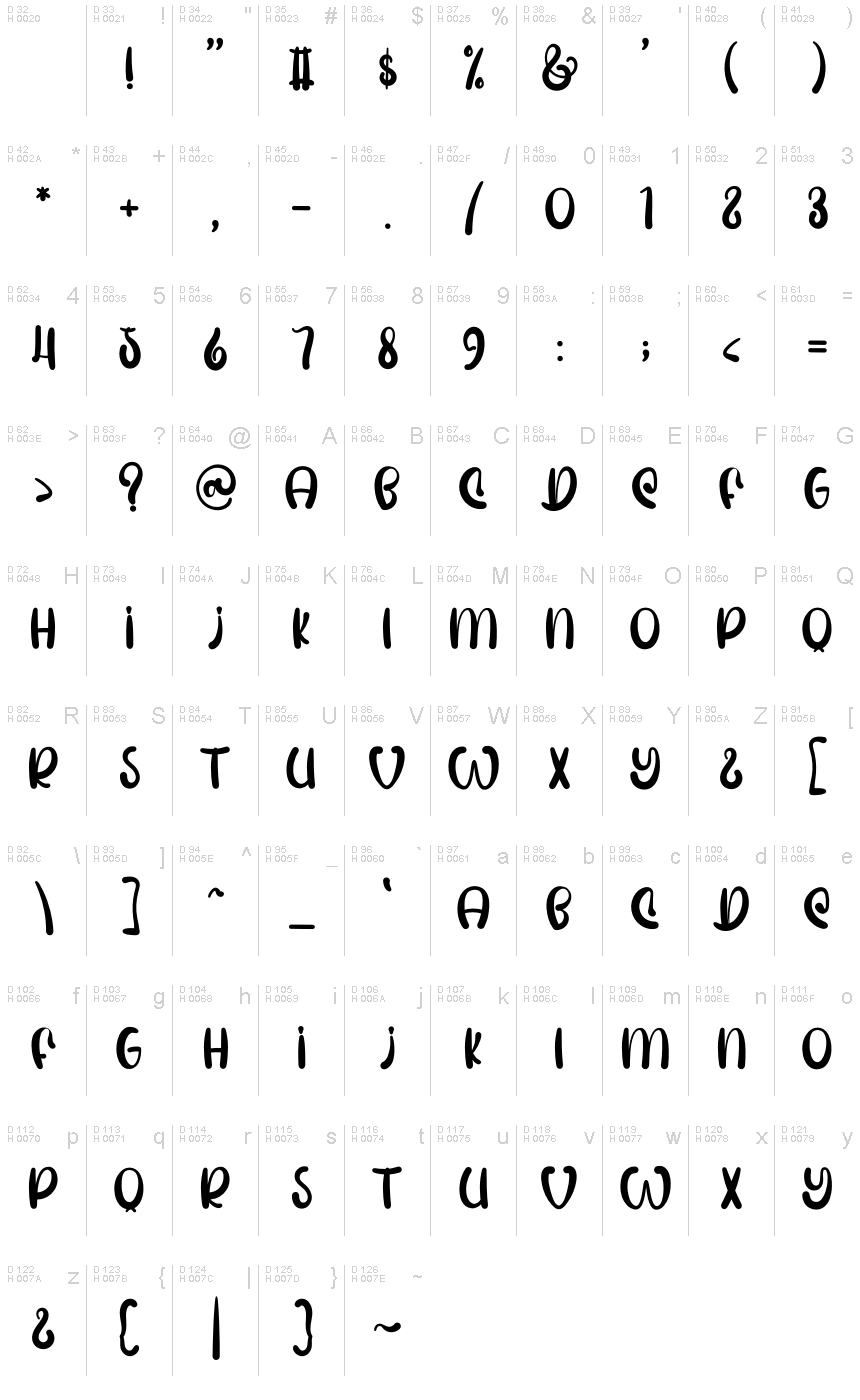
Christmas Bliss
Christmas Bliss, crafted by PiPi Creative, embodies the joy and warmth of the holiday season with its smooth brush style. This semi-bold typeface offers a delightful blend of casual charm and festive flair. Its semi-condensed width adds a cozy, inviting feel to each letter, suggesting merriment and cheer in every curve.
The playful yet readable nature of Christmas Bliss makes it an ideal choice for a wide range of creative endeavors. From heartfelt holiday cards to spirited event banners, this font brings a touch of personalized elegance. Embrace the enchanting spirit of Christmas with Christmas Bliss—a font that beautifully captures the essence of winter celebrations through its expressive and buoyant character.